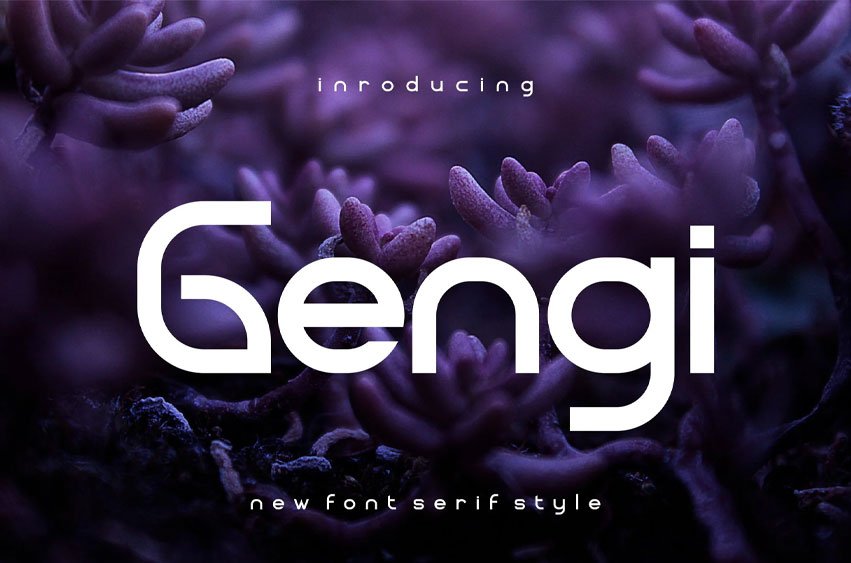
Gengi Font Sans Display Font Logo is an awesome and authentic display font.
This font is well-suited for a variety of contexts, such as print design, promotional materials, or magazine layouts.